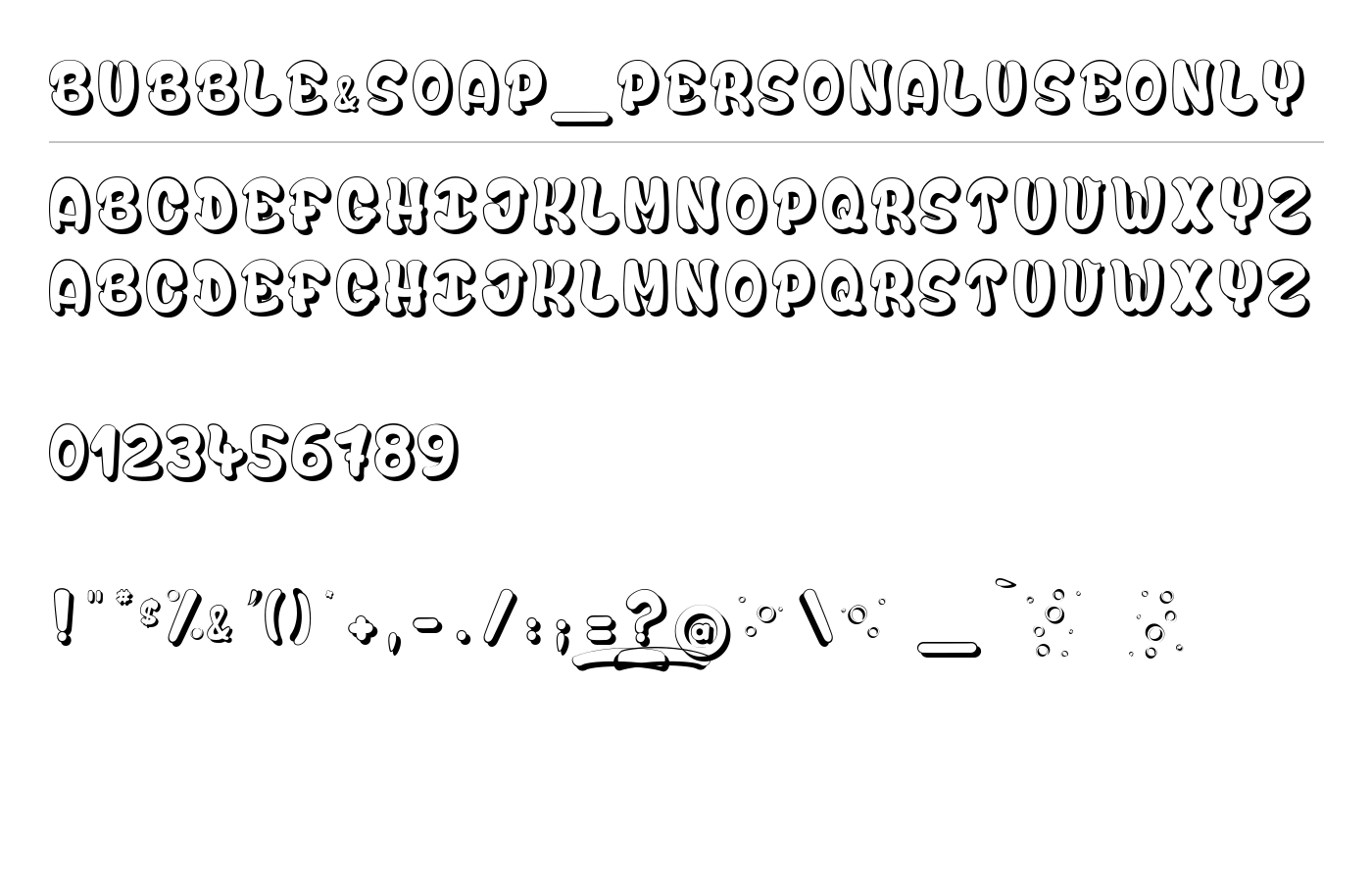
Bubble&Soap is a playful, bold display font with a fun, rounded sans serif style characterized by thick, bubbly letterforms and a distinct 3D shadow effect that adds depth and whimsy. Its uppercase letters and rounded edges create an inviting, casual feel perfect for children’s products, party invitations, or lighthearted branding where a cheerful and approachable look is desired. This font excels in headlines or logos, bringing energetic charm and a sense of delight to any design.